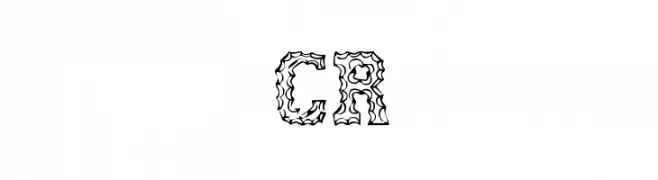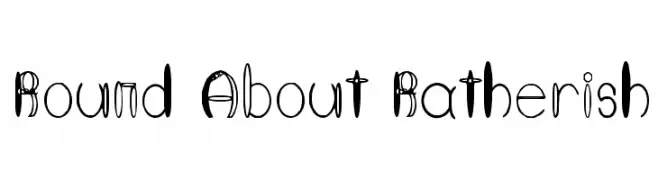
A bold, graffiti-inspired font with a dynamic, street art style.
A decorative font with intricate leaf and vine patterns for a whimsical, nature-inspired look.
A bold, decorative font with star embellishments for a playful look.
A bold, playful font with a hand-drawn aesthetic and high contrast.
Bold, italicized font with a shadow effect and a futuristic, angular design.
A bold, geometric font with a shadow effect for a modern, three-dimensional look.
A playful set of cartoonish face icons within squares.
A bold, distressed 3D font with a rugged, stone-like appearance.
A playful, stitched outline font with a handcrafted, whimsical style.
A decorative font with hollow characters encased in flower shapes, ideal for creative projects.
A whimsical font with characters enclosed in flower shapes, perfect for playful designs.
A bold, textured font with a modern, industrial feel.
A bold, italic, and energetic font with a hand-drawn appearance.
A hand-drawn, ink-textured font with a rustic and artistic style.
A bold, modern font with a distinctive vertical striped pattern.
A dotted, dynamic font perfect for lively and energetic designs.
A playful decorative font with letters inside pots of gold.
A playful, decorative font with characters encased in ring-like designs, reminiscent of vintage typewriter keys.
A playful, chalkboard-style font with decorative square borders around each character.
A bold, distressed font with a rugged, grunge-like appearance.
A bold, playful font with a comic book style, featuring characters in jagged starburst shapes.
Abstract geometric pattern set with high visual contrast.
A whimsical, decorative font with swirling embellishments and bold strokes.
A modern, geometric hollow font with a futuristic and technical design.
A bold, geometric outline font with sharp angles and clean lines.
An ornate, baroque-style decorative font with intricate frames around bold serif letters.